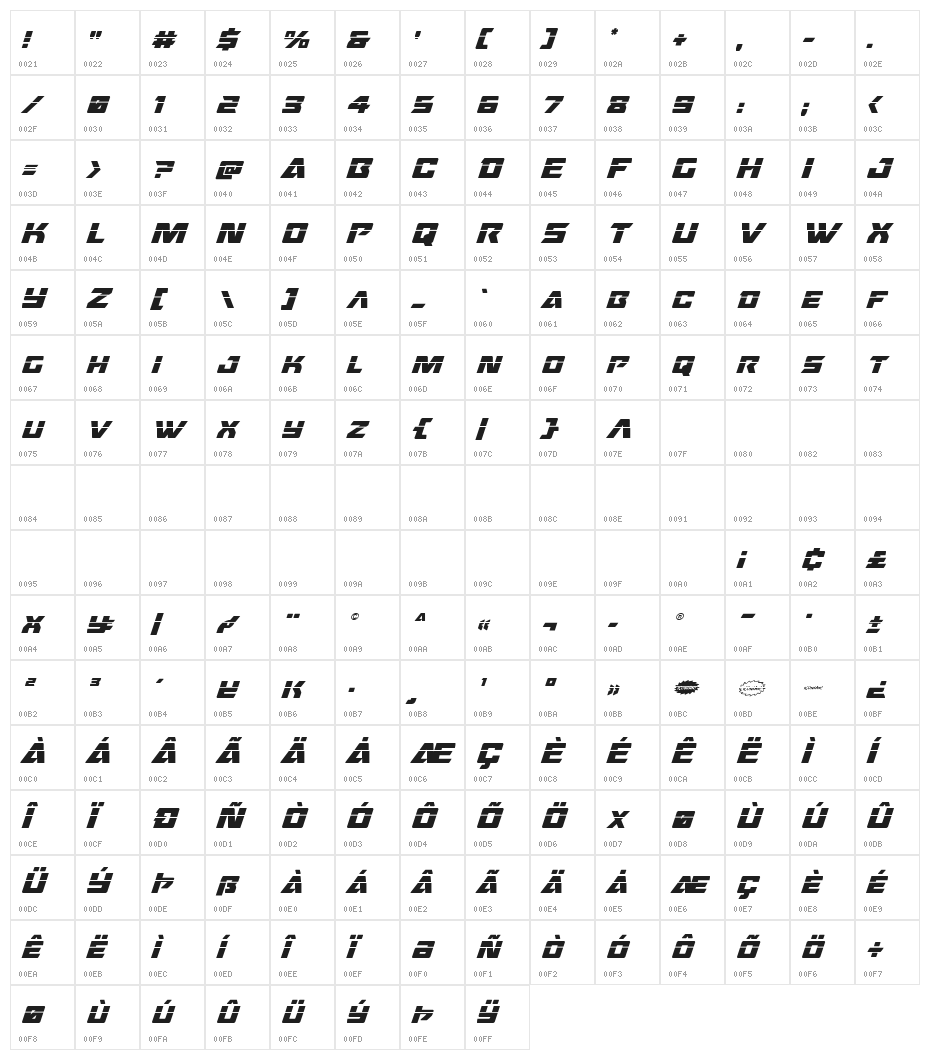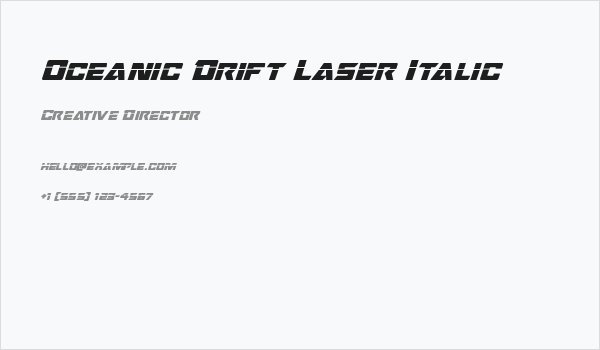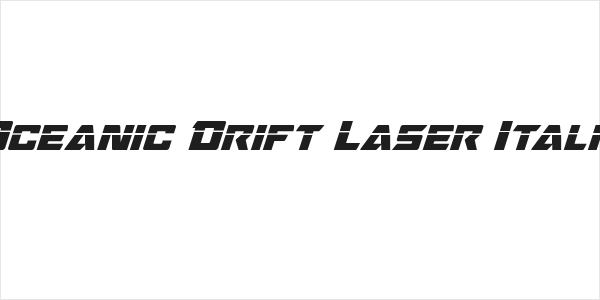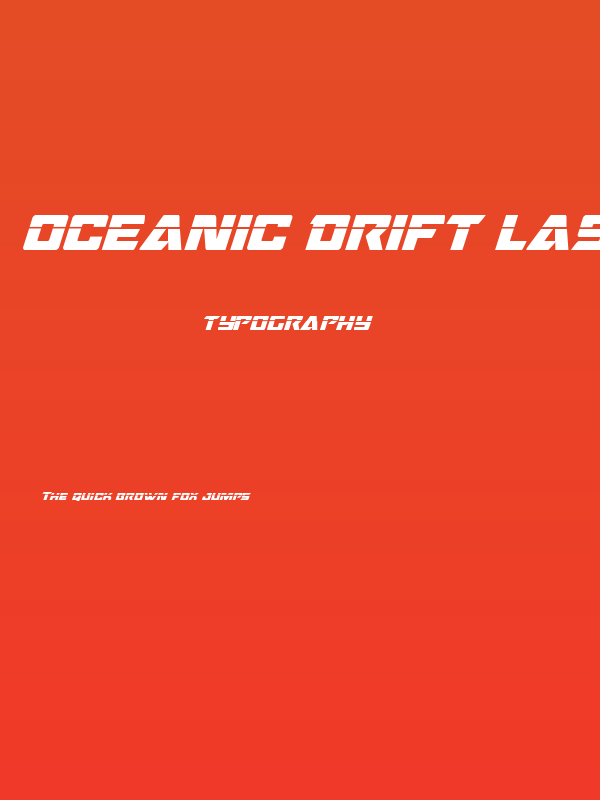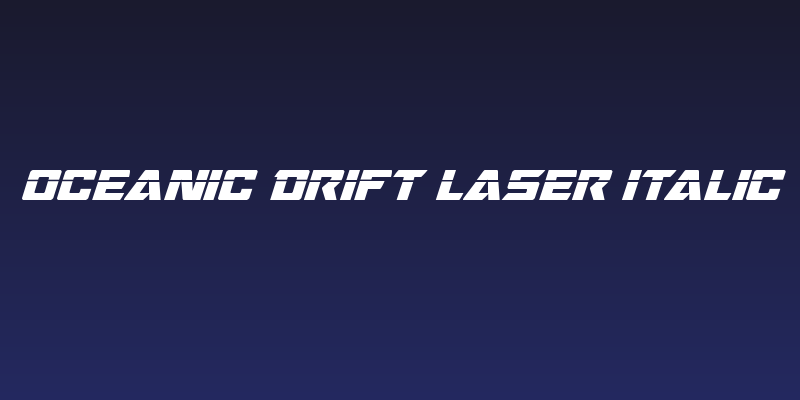
Oceanic Drift Laser Italic Font
Oceanic Drift Laser Italic Description
This font features a bold, futuristic design with a strong emphasis on angular lines and geometric shapes. The characters are italicized, giving a sense of motion and speed, reminiscent of high-tech or sci-fi themes. The strokes are thick and consistent, providing a robust and impactful appearance. The overall style is modern and dynamic, making it suitable for projects that require a bold statement. The character spacing is tight, enhancing the compact and cohesive look of the text.
| Proposed Projects | Ideal for technology branding, sci-fi movie posters, video game titles, and sports team logos. |